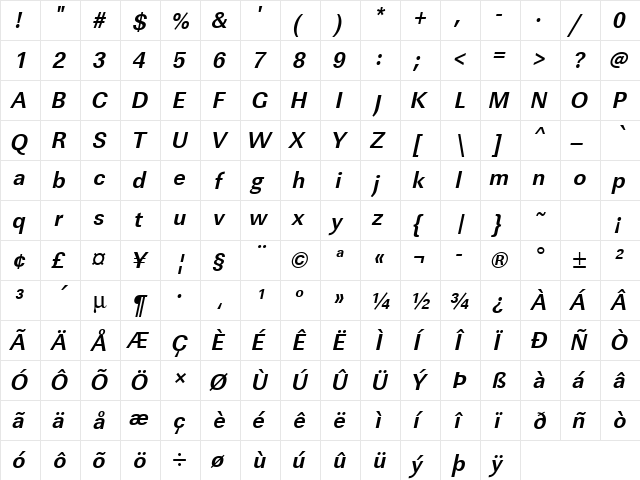
URWLinearTNar Bold Oblique Font Preview
URWLinearTNar Bold Oblique
Design Context for URWLinearTNar Typeface
URWLinearTNar offers clean, dependable letterforms without strong stylistic allegiance, making it a practical choice for designers who need flexibility. The dynamic lean of this cut emphasises speed and emphasis in any layout. The heavy weight commands attention and anchors typographic hierarchies.
Pro Tip: Use URWLinearTNar for emphasis, pull quotes, and subheadings where its slanted energy can add rhythm to the layout.